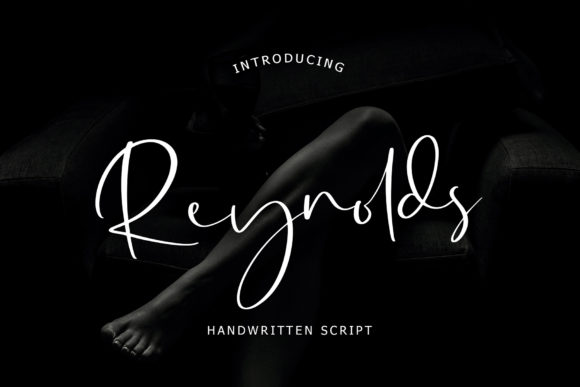
Hold on tight as we embark on a daring expedition into the realm of Reynolds, a remarkable script font that's bound to ignite your imagination and set your designs ablaze with adventure! Crafted by the ingenious minds at formatikastd, Reynolds isn't just a font—it's a portal to a world where authenticity and excitement collide.
Picture this: your designs adorned with Reynolds' captivating strokes, exuding the raw energy of an explorer's journal. Each letter dances across the page, beckoning you to embark on an extraordinary journey. Whether you're crafting a captivating brand identity, designing an unforgettable wedding invitation, or creating social media posts that sizzle with adventure, Reynolds is your trusty companion.
With Reynolds by your side, your designs will conquer the digital wilderness, capturing hearts and minds with its undeniable charm. Its versatility knows no bounds, adapting seamlessly to any terrain—from product packaging that captivates to logos that command attention.
So, cast aside the mundane and embrace the allure of Reynolds! Let its adventurous spirit guide your designs to new horizons, where every stroke speaks volumes and every project becomes an unforgettable expedition.